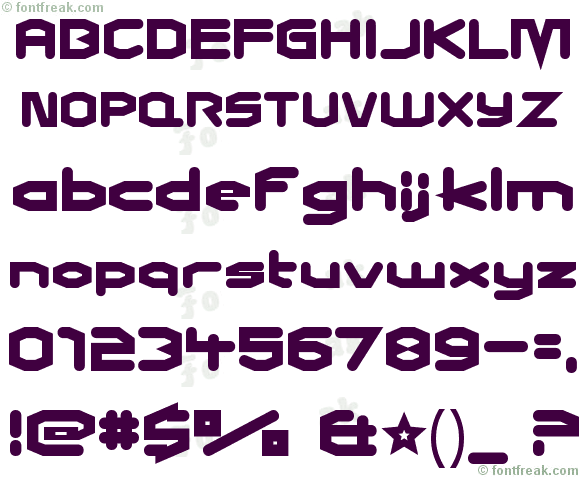
Charles in Charge
About Charles In Charge
Charles In Charge, designed by Ray Larabie in 1998 and updated in 2004, is a distinctive display typeface that blends playful charm with a touch of retro sophistication. This font falls under the decorative category, characterized by its bold, rounded letterforms that convey a sense of approachability. The stroke weight is consistently thick, providing a uniform appearance that enhances legibility, while the slight contrast between the rounded strokes and the subtle curves adds a unique visual appeal. The generous spacing between characters allows for easy reading, making it a great choice for various creative projects.
Best suited for eye-catching applications, the Charles In Charge font excels in a range of use cases. It is perfect for vibrant wedding invitations where a whimsical touch is desired, as well as for lively movie posters that aim to capture attention. Additionally, this font can elevate restaurant menus, providing a friendly and inviting atmosphere, and is ideal for branding materials that require a memorable and distinctive presence. Graphic designers, small business owners, and content creators will find this font particularly appealing, as it offers a unique character that can enhance their projects.
What sets the Charles In Charge font apart is its ability to evoke a sense of nostalgia while remaining fresh and contemporary. Its playful design makes it an excellent choice for projects that seek to communicate a fun and lighthearted message. With the Charles In Charge font free download available, anyone can incorporate this delightful typeface into their work, adding a touch of personality and charm that is sure to resonate with audiences. Whether you are creating promotional materials or personal projects, Charles In Charge is a versatile font that stands out in any design.